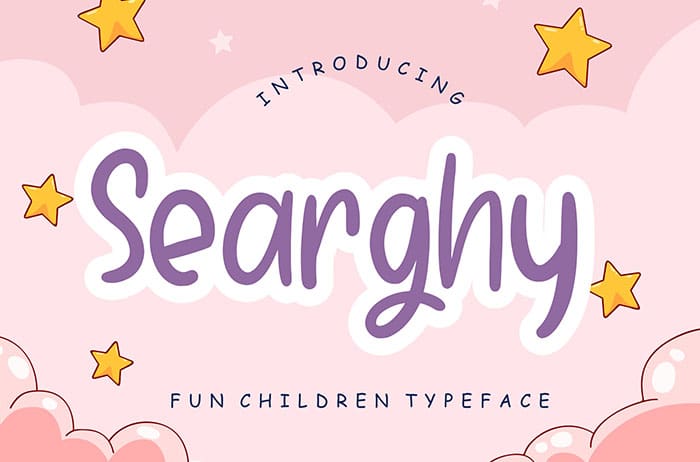
Searghy Display Font
Searghy is a fun children Display Font which perfect for children and kindergarten occasion. Searghy is perfect for branding projects, logo, label, photography, watermark, invitation, stationery and more. Thanks to Creatype Studio for sharing this font! Take a look at this portfolio for more of his stunning fonts.